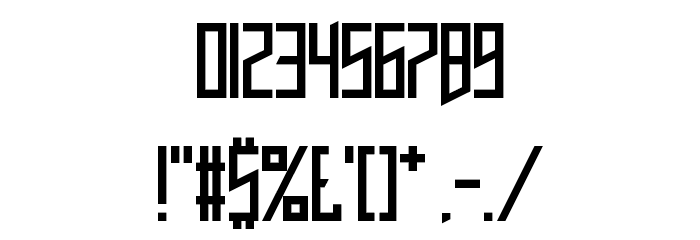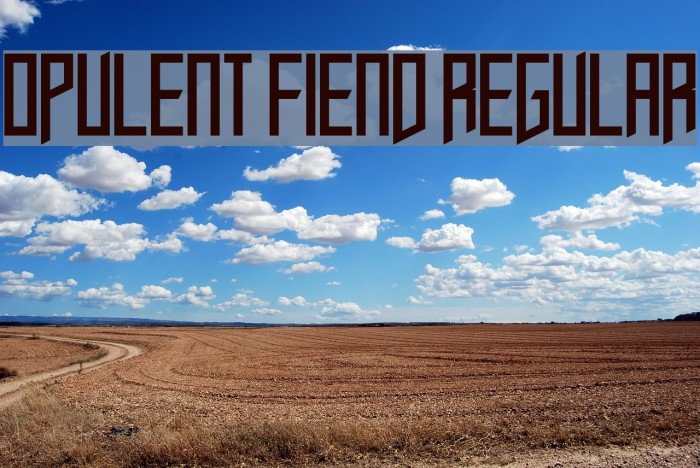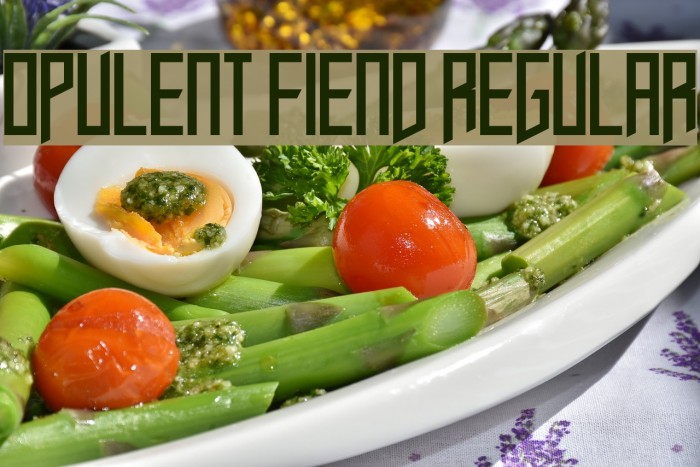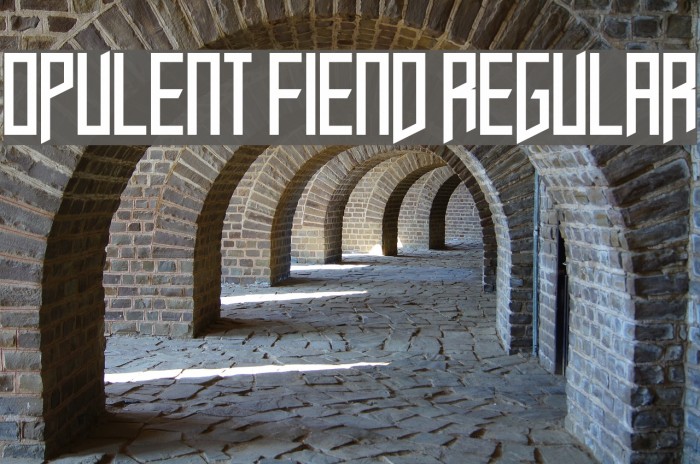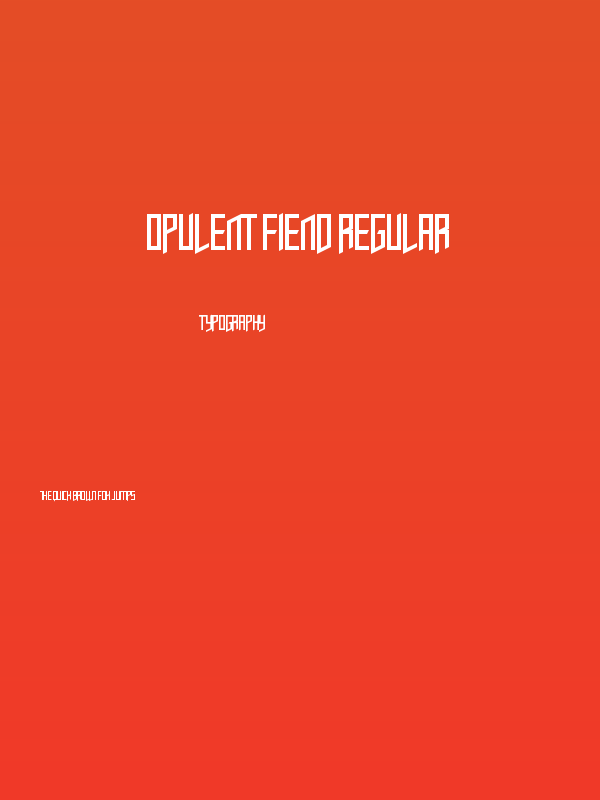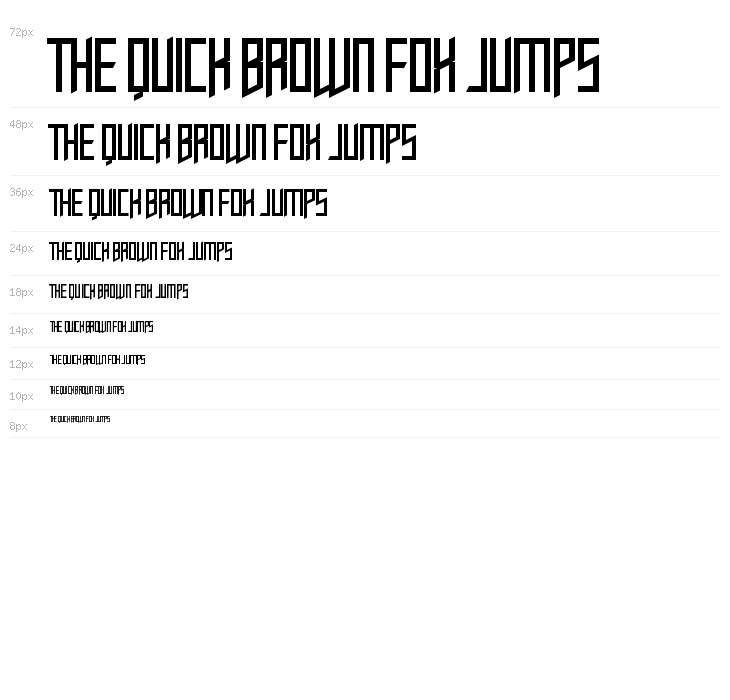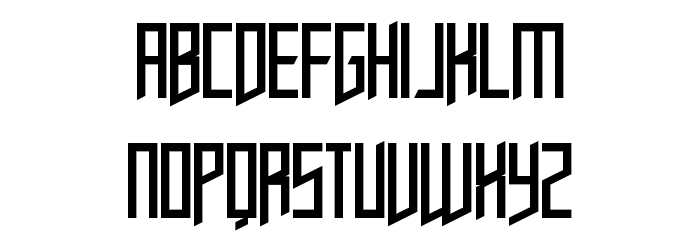
Opulent Fiend Regular Font
Opulent Fiend Regular Description
This font features a bold and geometric design with sharp angles and a modern aesthetic. The characters are constructed with straight lines and acute angles, giving them a futuristic and edgy appearance. The uppercase and lowercase letters maintain a consistent style, with a uniform height and width that creates a cohesive look. The numerals and special characters follow the same design principles, ensuring a seamless integration with the alphabet. This font's unique style makes it stand out, making it ideal for projects that require a strong visual impact.
| Proposed Projects | Ideal for branding, posters, album covers, and any project needing a futuristic or bold statement. |